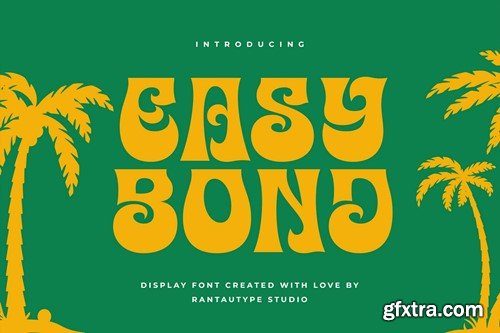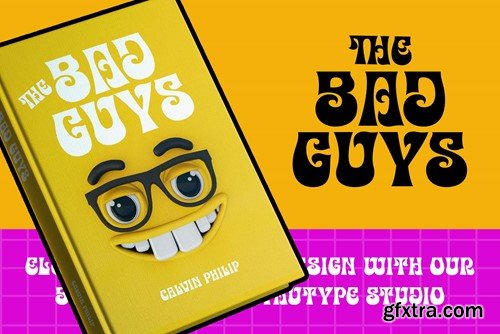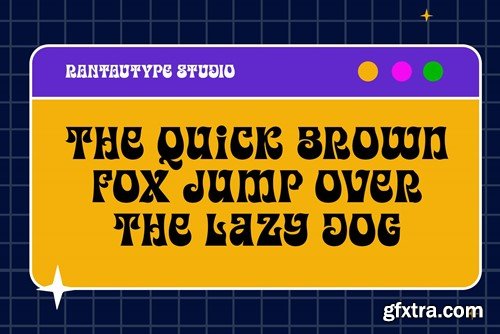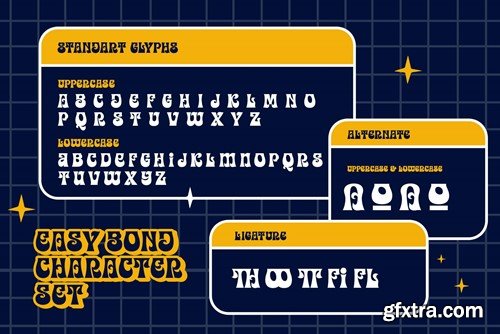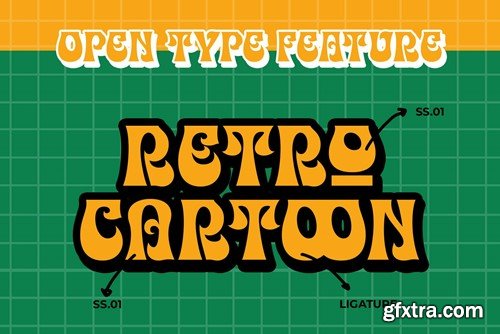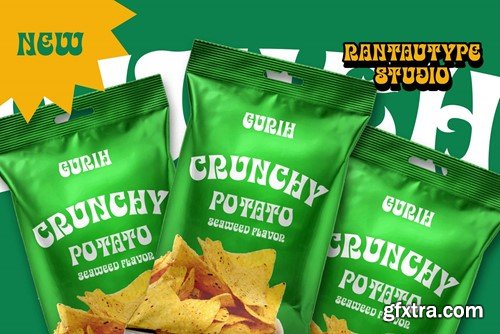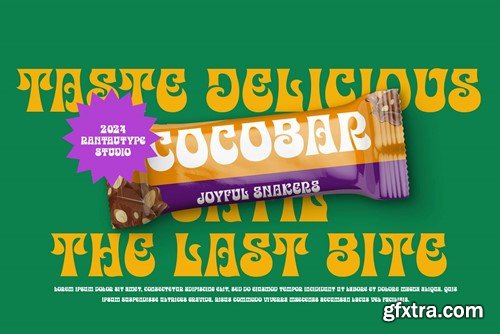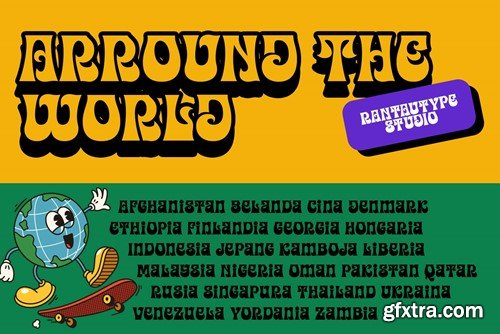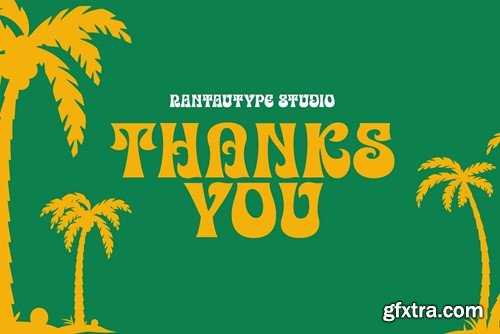
易绑显示字体 EJ4PPKG
Easy Bond is unique and versatile serif display font. This font can give your designs a playful and friendly impression. Come with more alternate, ligature and already support multilingual character. Easy Bond separate in reguler and italic, is a beautiful choice for any creative endeavor, creating fun, modern, chic, lifestyle design such as logos, title, cover, branding, business project, corporate project, packaging, display, magazine and more design project with playful taste. What you have: Fonts include Multilingual Support for: Afrikaans, Albanian, Asu, Basque, Bemba, Bena, Breton, Chiga, Cornish, Dutch, English, Estonian, Filipino, Finnish, Friulian, Galician, Gusii, Indonesian, Irish, Italian, Kabuverdianu, Kalenjin, Kinyarwanda, Luo, Luxembourgish, Luyia, Machame, Makhuwa-Meetto, Makonde, Malagasy, Manx, Morisyen, North, Ndebele, Nyankole, Oromo, Portuguese, Quechua, Romansh, Rombo, Rundi, Rwa, Samburu, Sango, Sangu, Scottish, Gaelic, Sena, Shambala, Shona, Soga, Somali, Spanish, Swahili, Swedish, Swiss, German. Thank you for your purchase! Hope you enjoy with our font!